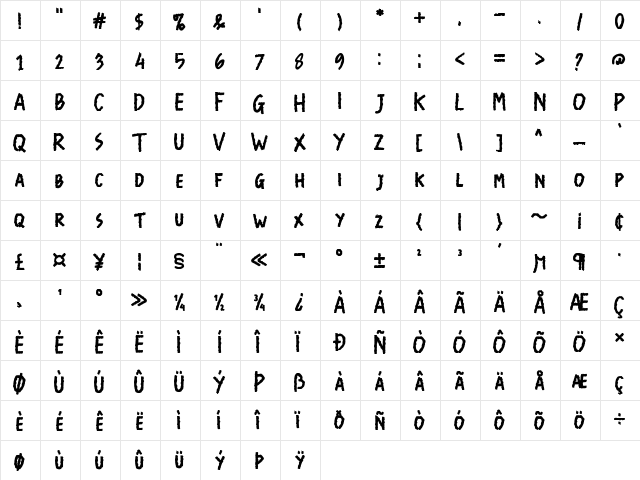
The Ever Awkward Regular
| Foundry | Atjcloth |
| Designer | Hanif Syahputra |
Design Context for The Ever Awkward Typeface
The Ever Awkward is a composed and adaptable typeface that performs quietly and consistently across a wide range of design contexts.